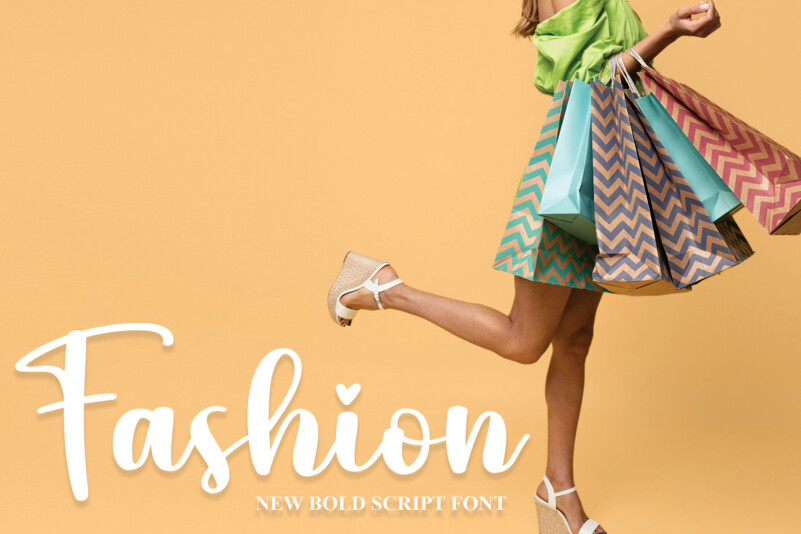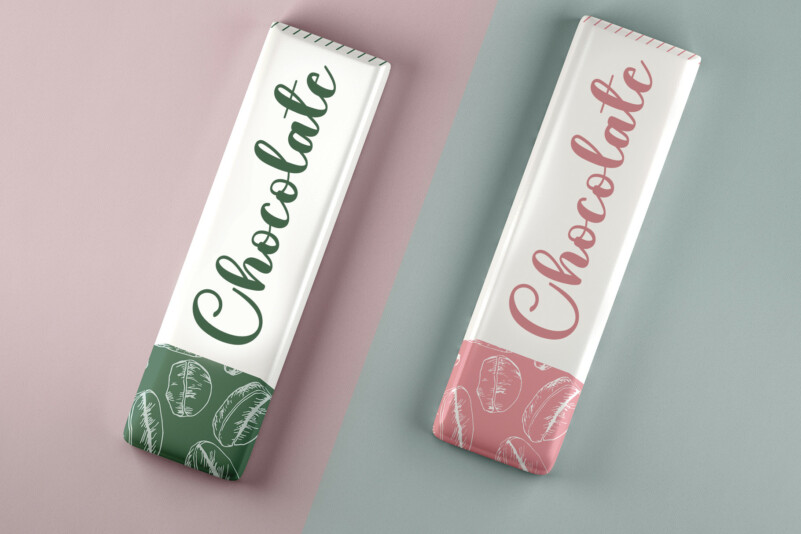
Beautiful Butterfly Font
Beautiful Butterfly’s latest style letters are perfect for wall displays, wedding invitations, social media post logos, advertisements, product packaging, product designs, labels, photography, watermarks, invitations, stationery, and any project that requires a handwritten taste.